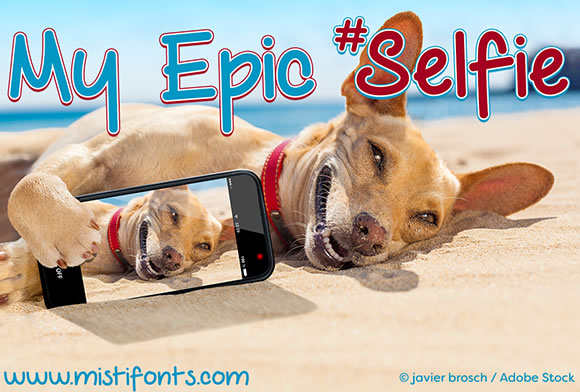
My Epic Selfie Font
About My Epic Selfie Font
This beautiful font has a thick look.
It can be used for various purposes such as; headings, logos, posters, invitations, headlines, book covers, and much more!